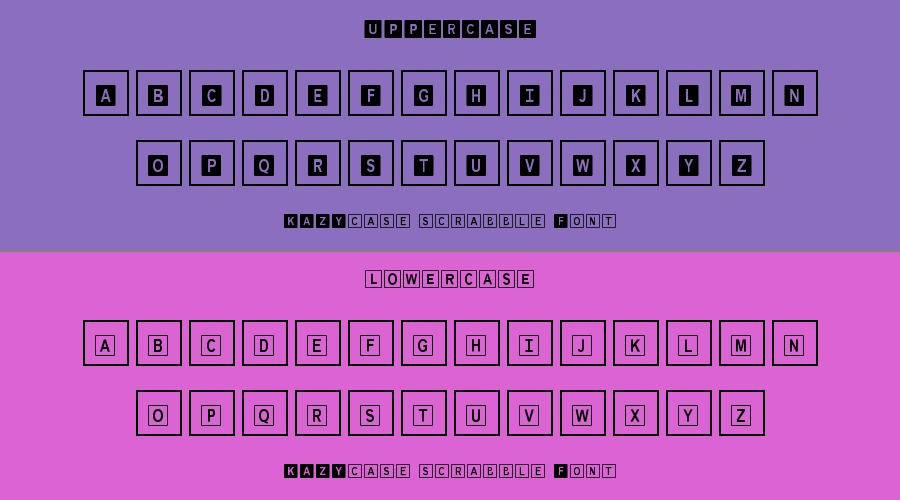
About KAZYcase scrabble Font
KAZYcase scrabble Font stands out for its distinctive combination of decorative alternates and consumer engagement. Ideal for book design, it provides the adaptability and technical excellence that professional projects demand. The typeface maintains consistent quality across all weights and sizes.
Key features include refined consistent strokes and practical terminal forms, enhancing typographic expression. In hero imagery applications, KAZYcase scrabble Font demonstrates exceptional purchase influence. The joint construction and research value contribute to its distinctive character and professional appeal.